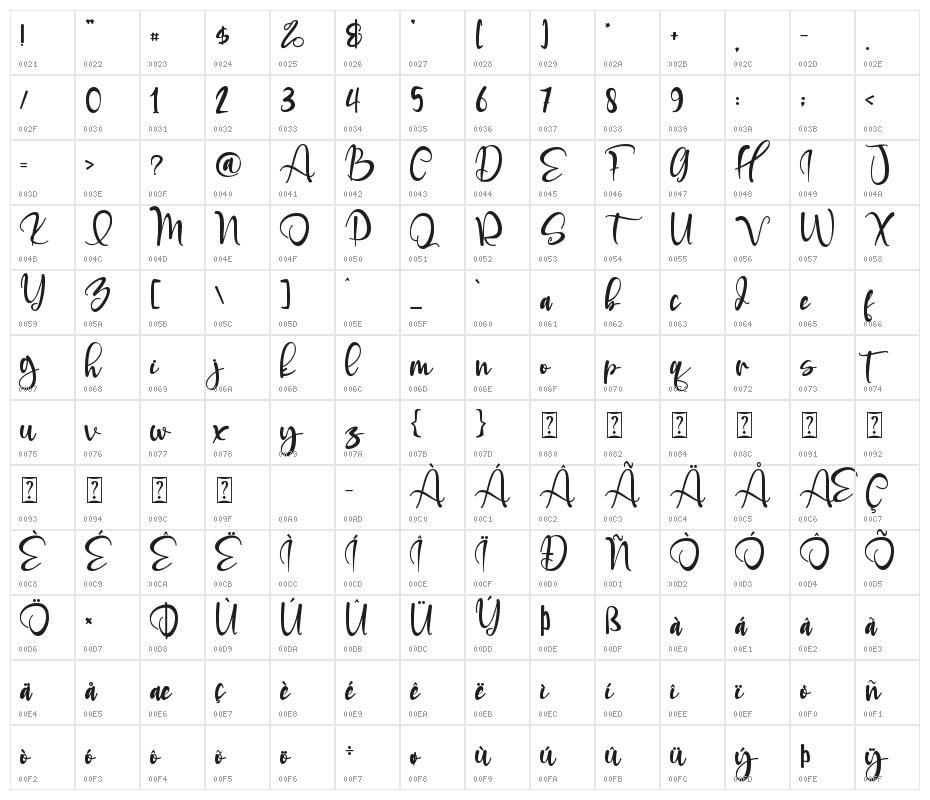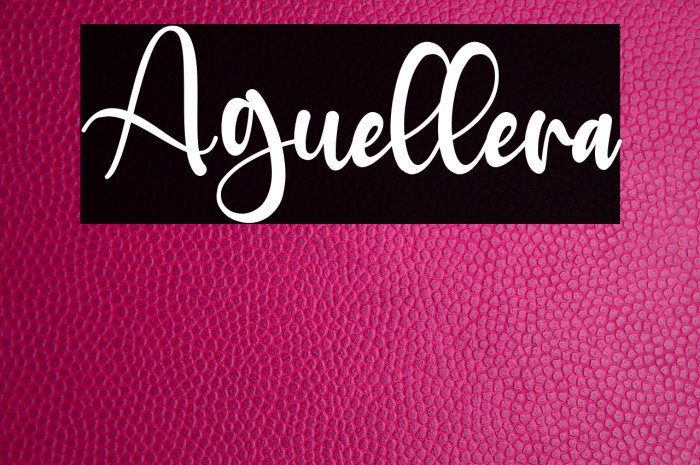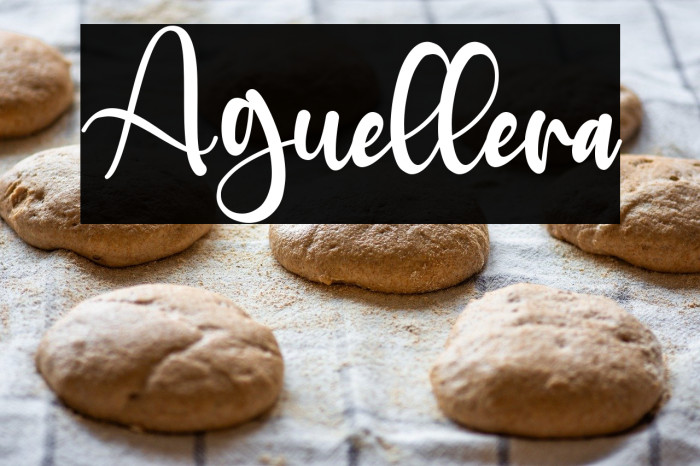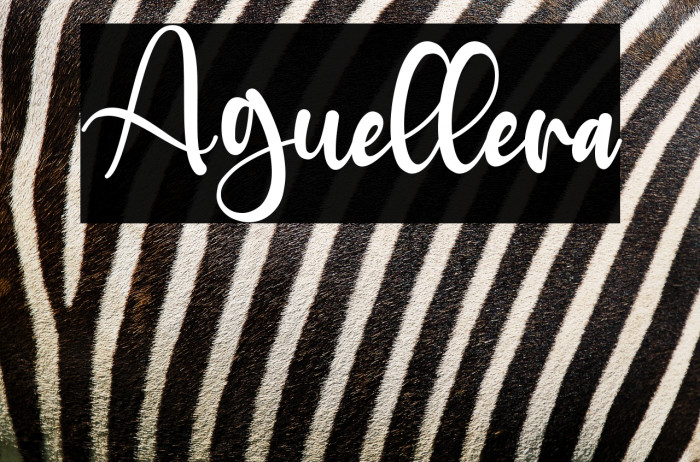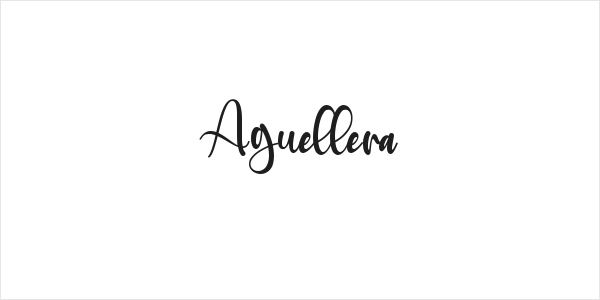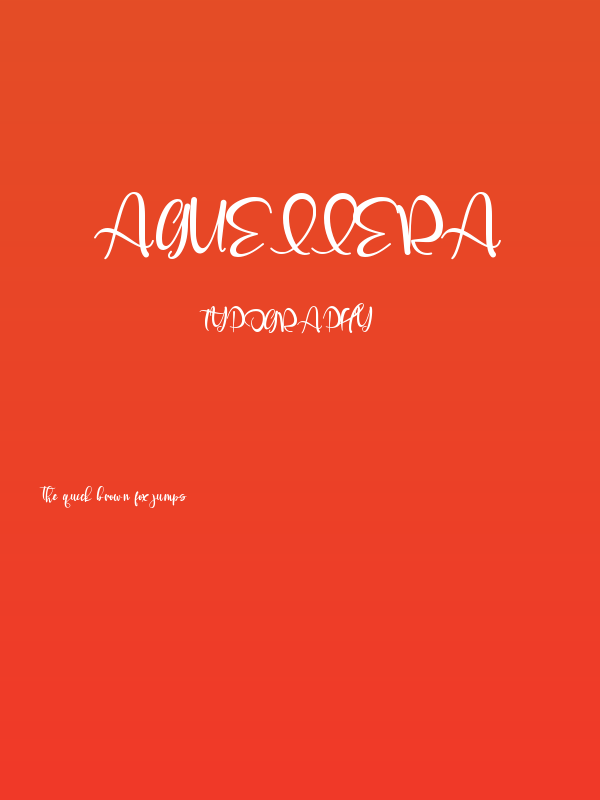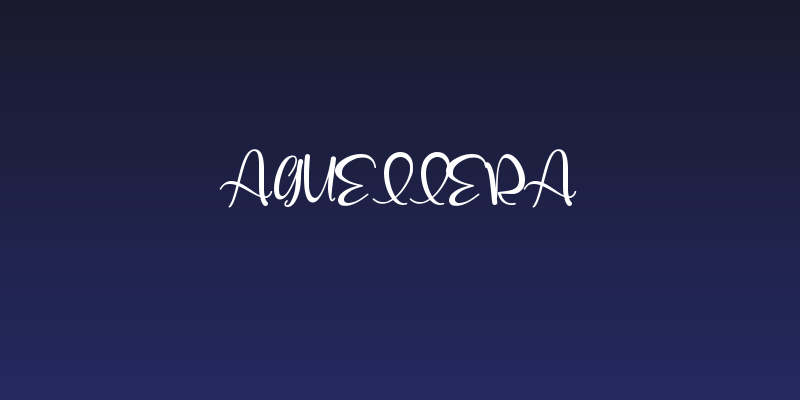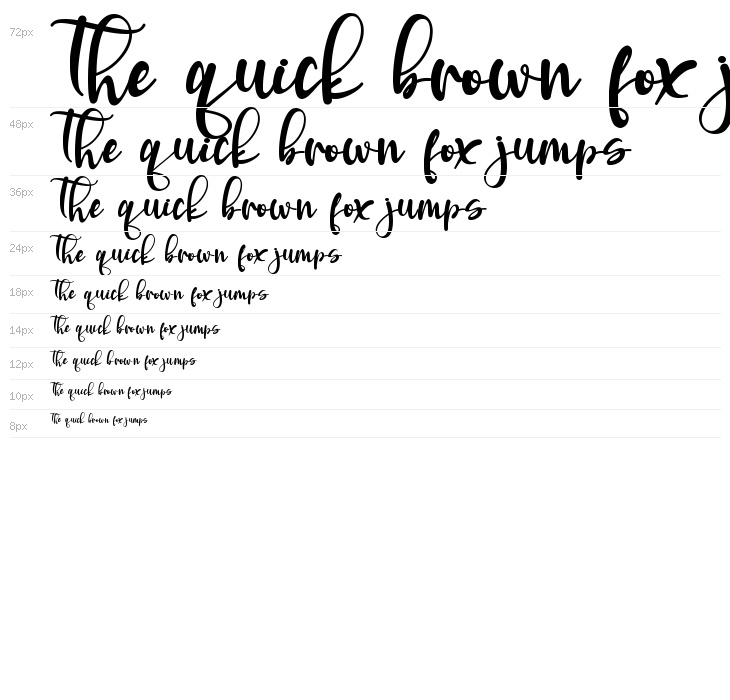
Aguellera Font
Aguellera Description
This font features an elegant, flowing script style that combines both uppercase and lowercase letters with a sense of fluidity and grace. The characters are designed with a natural, handwritten appearance, characterized by smooth curves and varying stroke widths that add a dynamic and artistic flair. The uppercase letters are bold and prominent, while the lowercase letters maintain a consistent style, enhancing readability. Numbers and special characters are included, matching the overall aesthetic with a playful yet sophisticated touch. This font is ideal for projects that require a personal, creative, and stylish look.
| Use Case | Logos, Headlines, Invitations |
| Proposed Projects | Ideal for wedding invitations, greeting cards, branding, and social media graphics. |